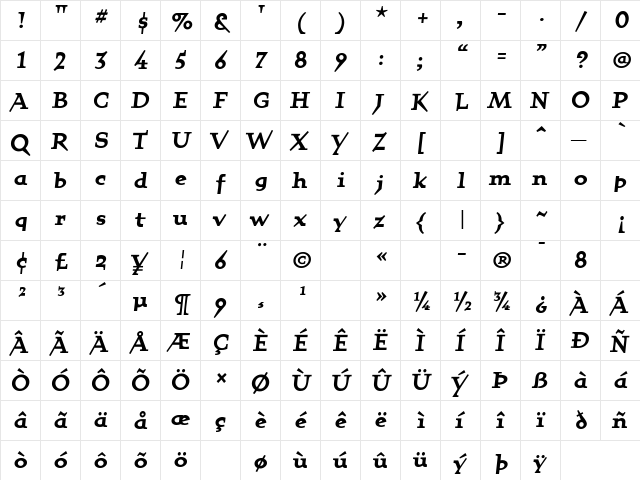
SlighterSSK Bold
Design Context for SlighterSSK Typeface
SlighterSSK takes a measured approach to typography — its balanced proportions and neutral character make it a reliable workhorse for both digital and print work. The heavy weight commands attention and anchors typographic hierarchies.